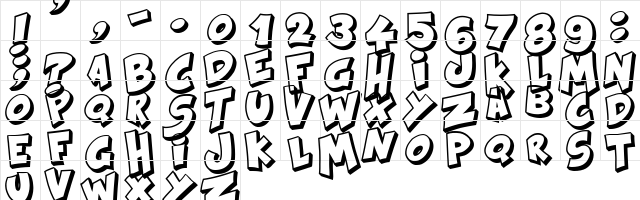
Kraash Regular
| Designer | IMAGEX |
Design Context for Kraash Typeface
Kraash is a composed and adaptable typeface that performs quietly and consistently across a wide range of design contexts.